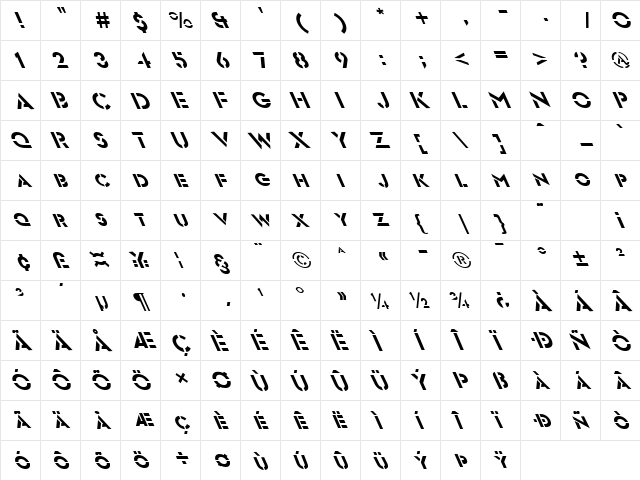
FZ JAZZY 54 LEFTY Regular
Design Context for FZ JAZZY 54 LEFTY Typeface
FZ JAZZY 54 LEFTY is a composed and adaptable typeface that performs quietly and consistently across a wide range of design contexts.